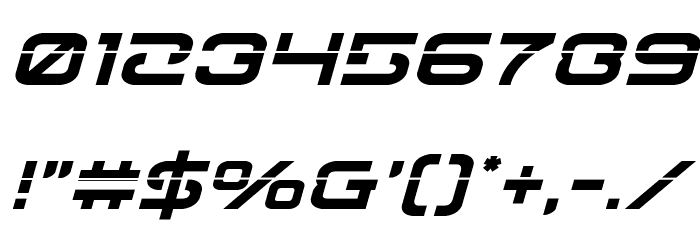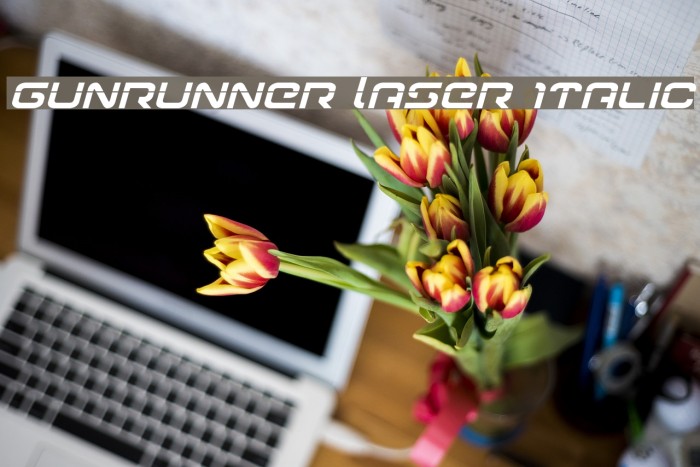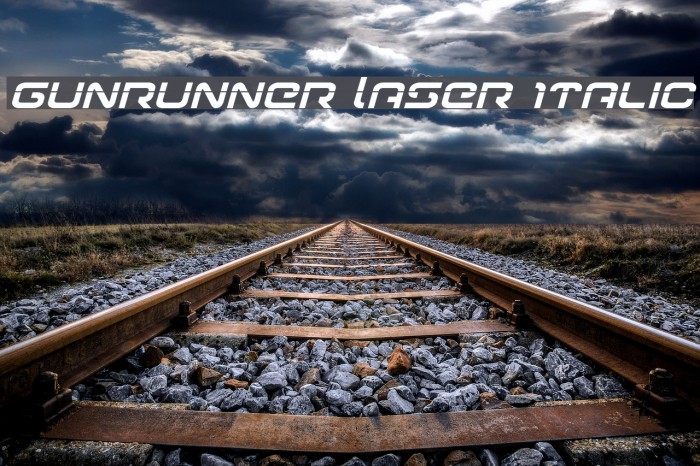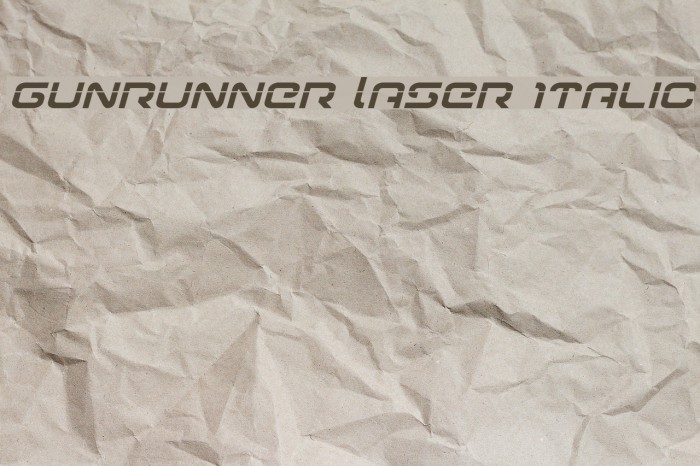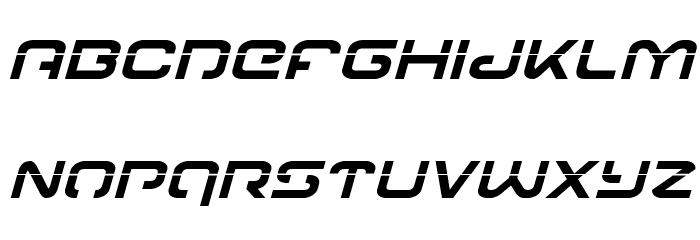
Gunrunner Laser Italic Font
Gunrunner Laser Italic Description
This font features a futuristic and dynamic design, characterized by its italicized and angular letterforms. The characters have a sleek, streamlined appearance, with sharp edges and a sense of motion, reminiscent of high-speed technology or sci-fi aesthetics. The uppercase and lowercase letters maintain a consistent style, with a slight slant that enhances the sense of speed and modernity. The numerals and special characters are designed to match the overall theme, providing a cohesive look across all glyphs. This font is ideal for projects that require a bold and modern touch, such as technology branding, video game titles, or futuristic posters.
A futuristic, italicized font with angular, dynamic letterforms from Sci-fi fonts.
- Proposed Projects: Ideal for technology branding, sci-fi posters, video game titles, and modern advertising.
- Overall Style: Futuristic